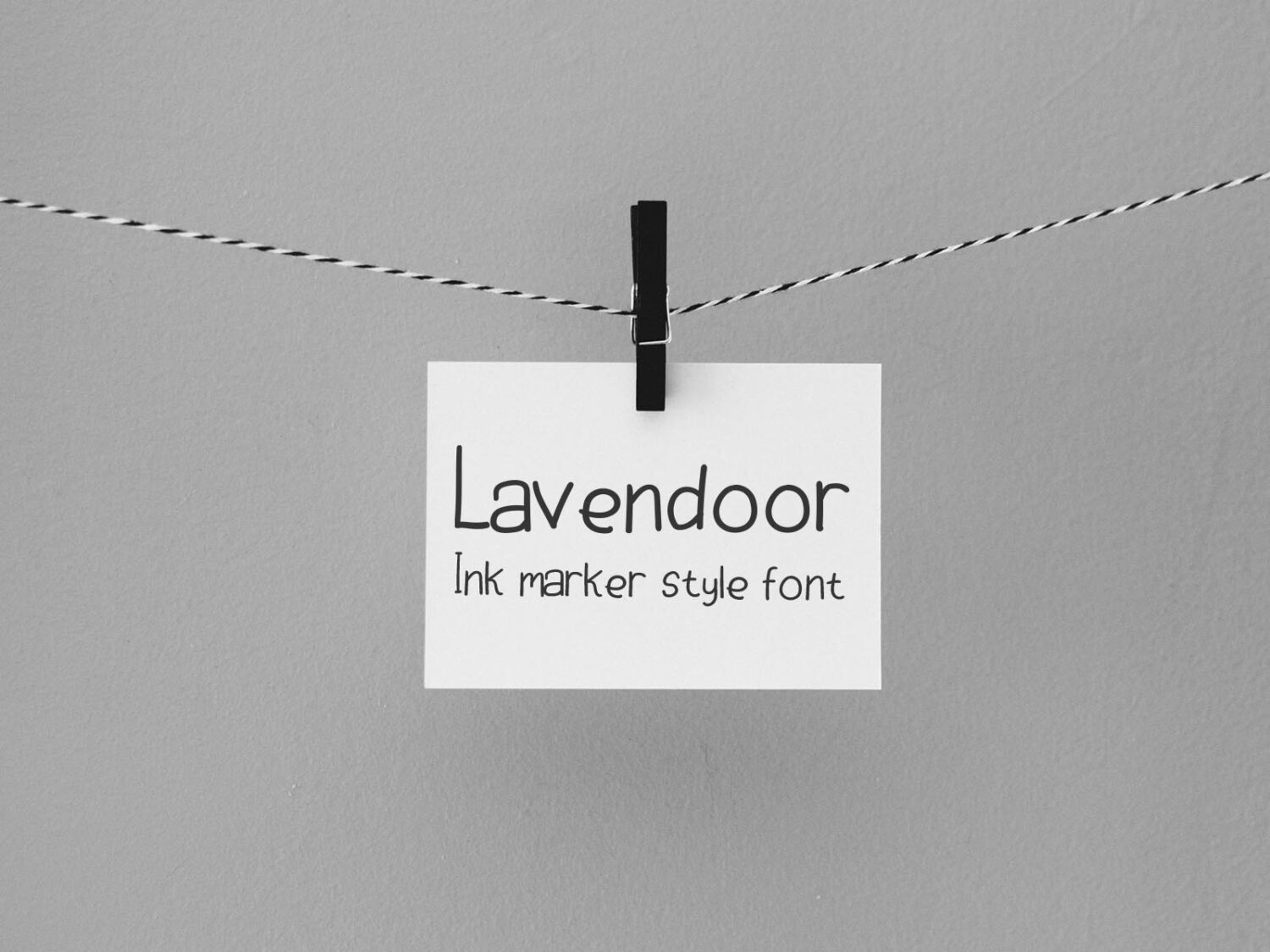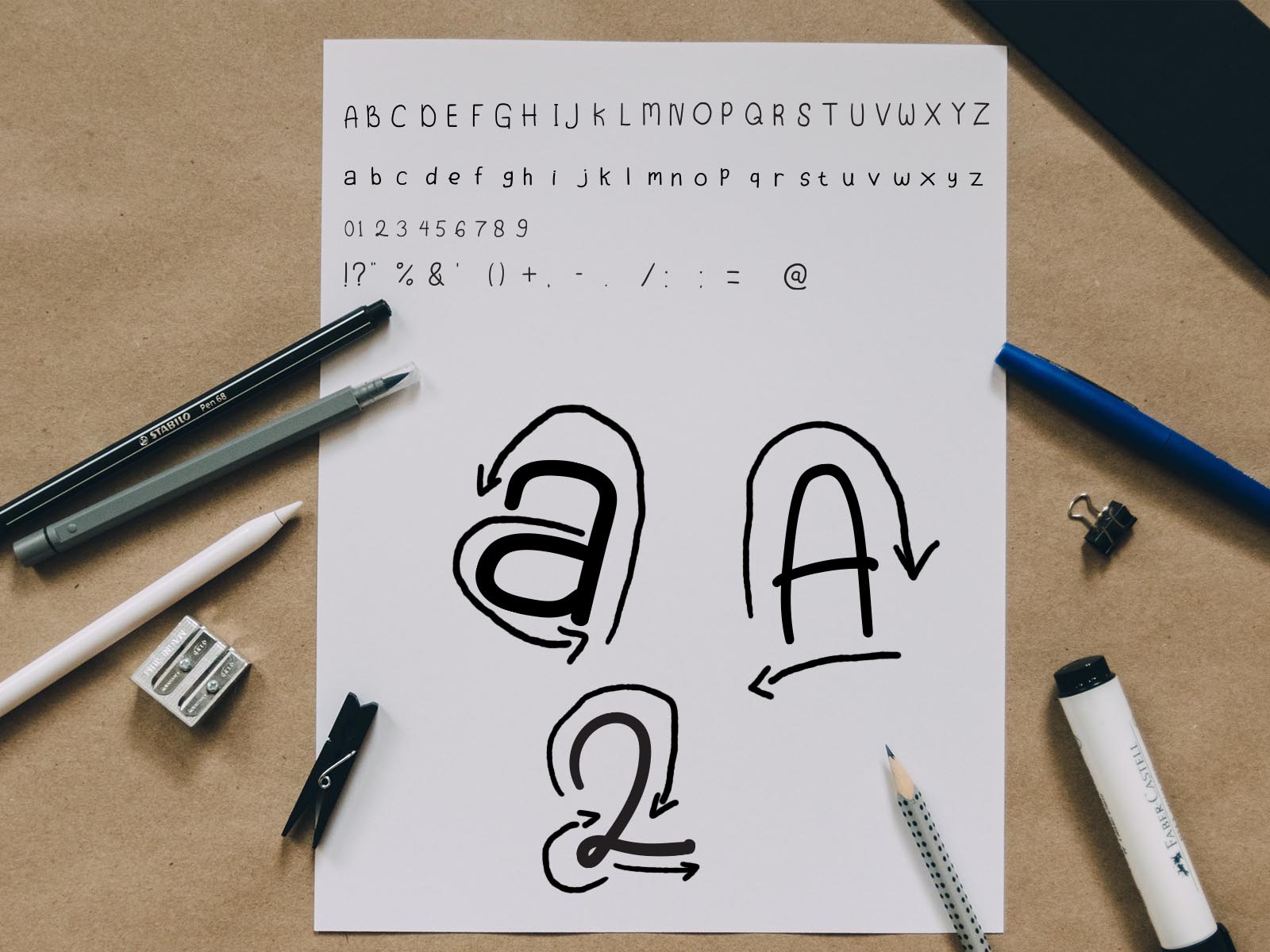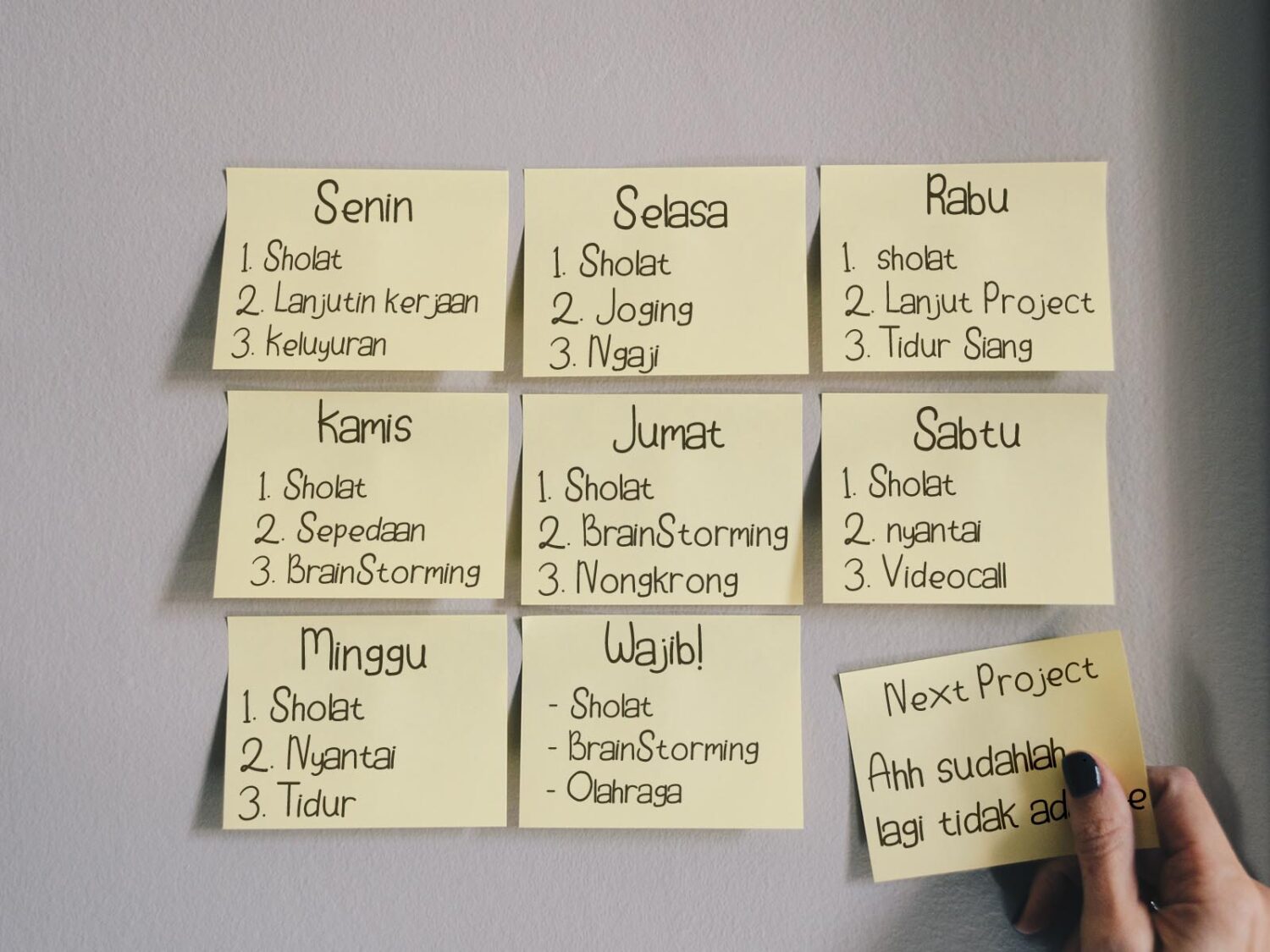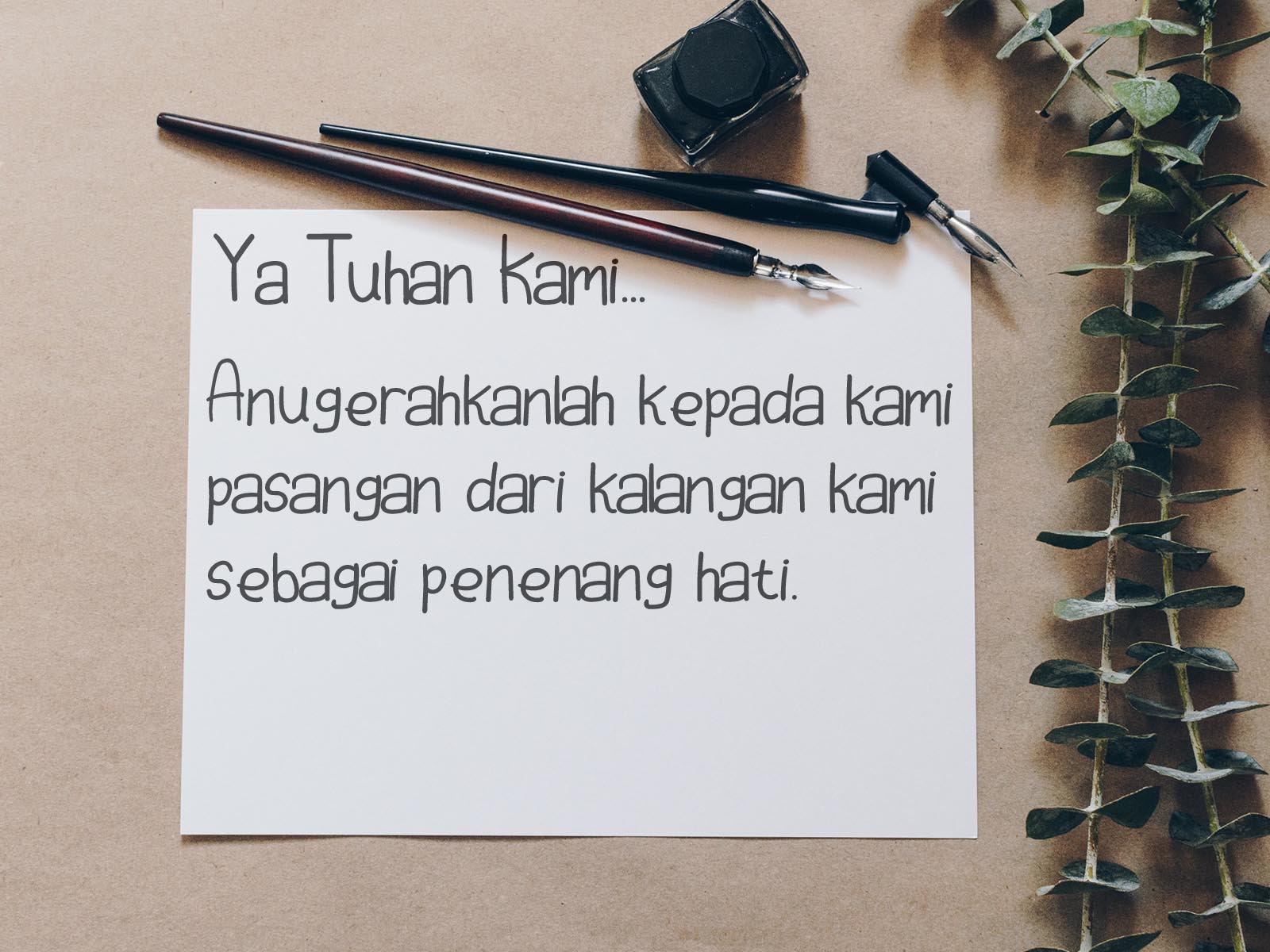
Lavendoor Script Free Font
Lavendoor Script Free Font is inspired by handwriting using ink markers, made as closely as possible by the creator so that it feels authentic if used for your project. This free typeface was designed by a talented Rizki Firdi Sjahril. If you like it don’t forget to check out the full version.